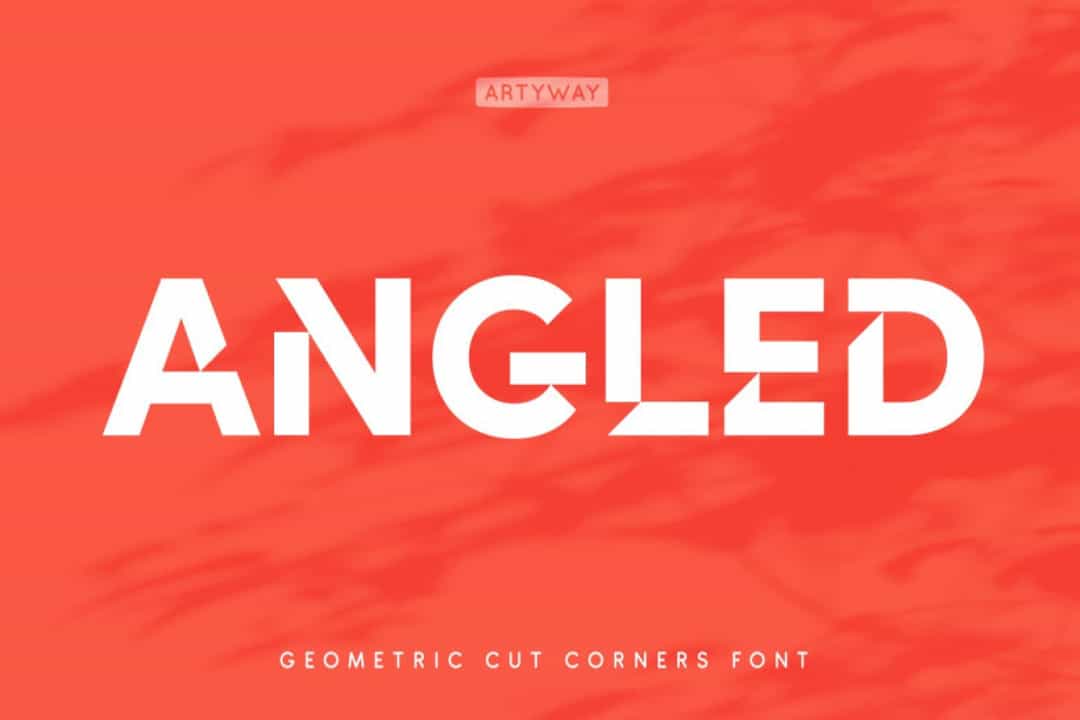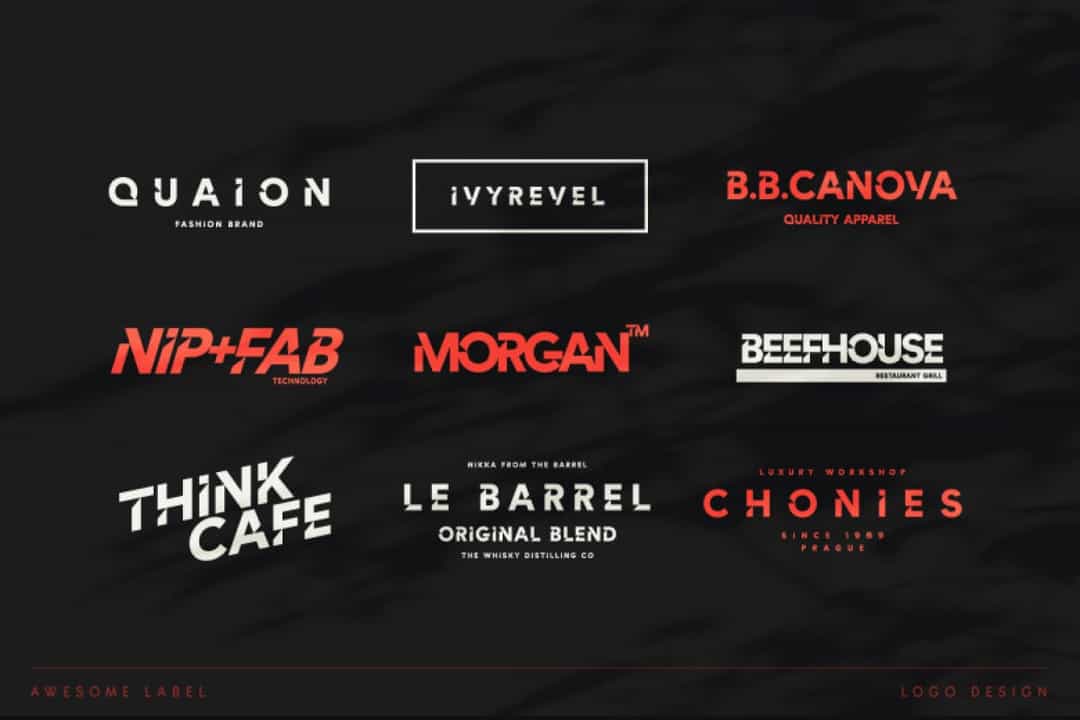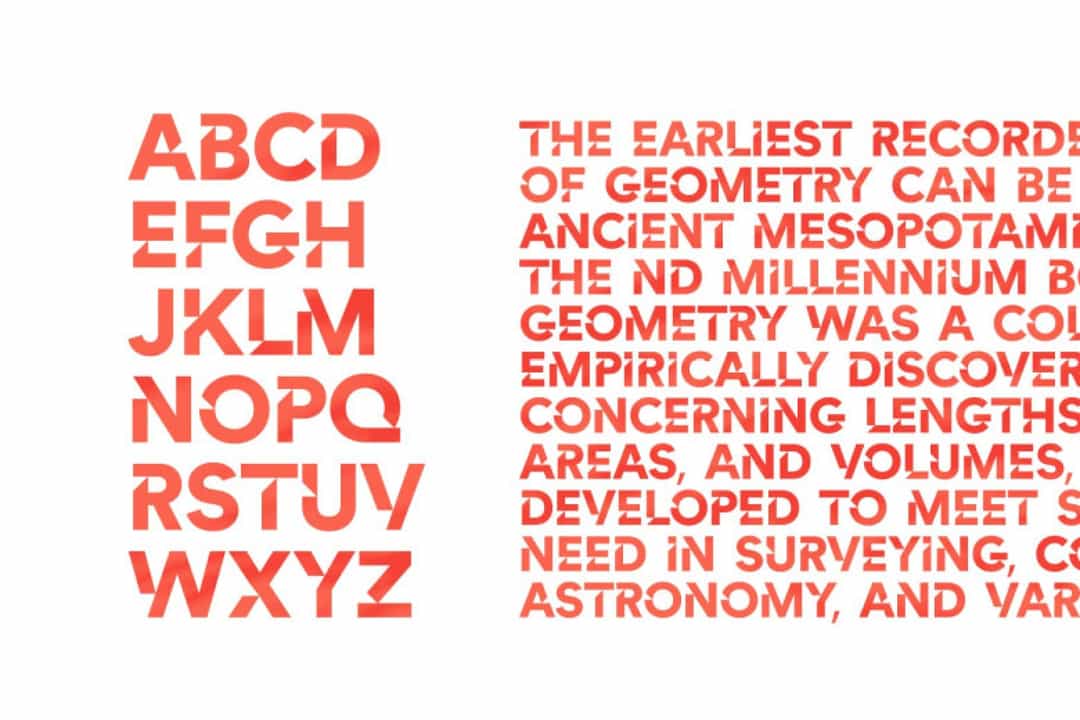
Discover Angles Font, part of the Display Logos collection—a versatile and unique font perfect for adding a personal touch to your projects. Download it for free and enjoy crafting designs with style, from invitations to social media posts. This font is available exclusively for personal use, giving you the freedom to create without limits. Unlock your creativity with Angles Font today!
Angles Logo Display Font brings its striking font inspired by current headline typography trends to digital formats, featuring exquisite geometric cutouts that give this font its unique aesthetics. Ideal for futuristic gaming designs such as GUIs or HUDs.